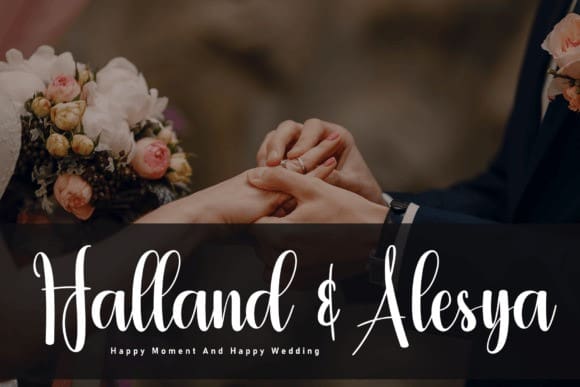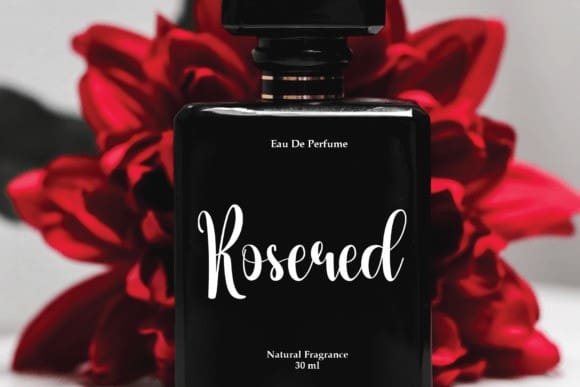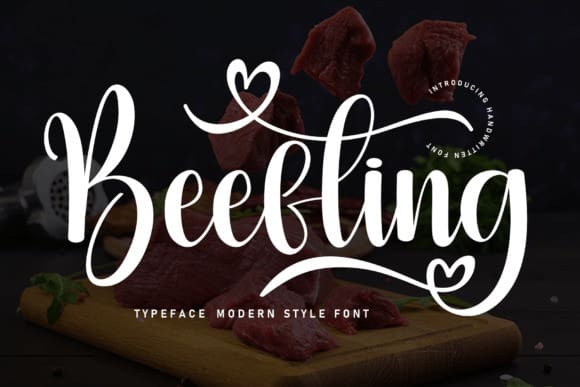
Beefting Script Font
Beefting Script Font, is a flowing handwritten font, described by an elegant touch, perfect for your favorite projects. Fall in love with its incredibly distinct and timeless style and use it to create spectacular designs!